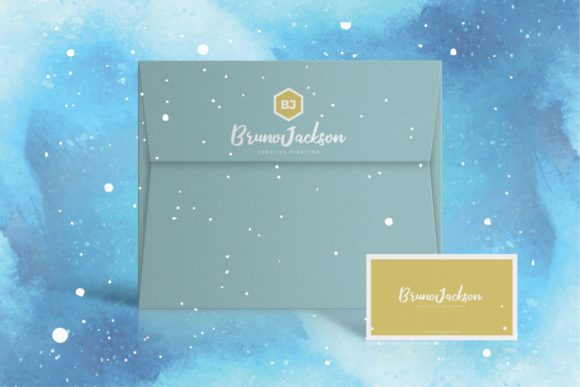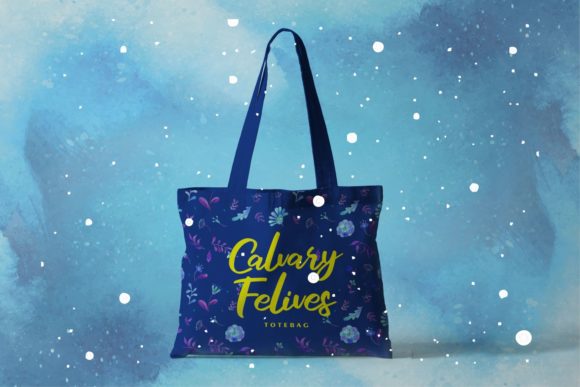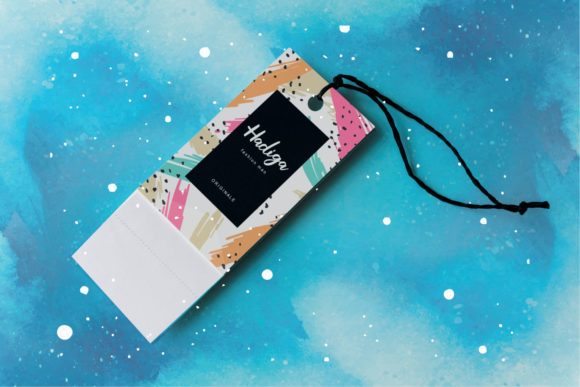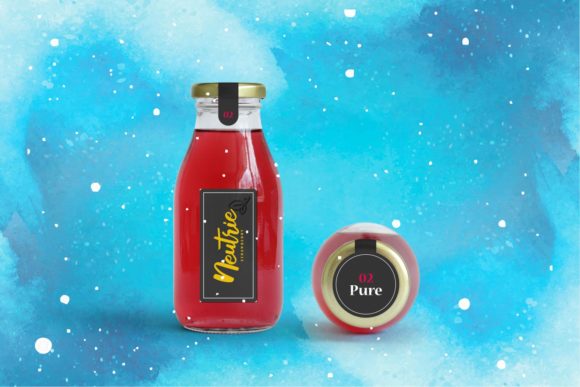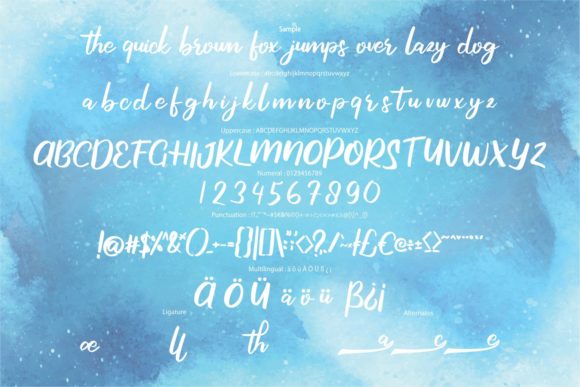
Introduction to Ratene Font
Ratene is a sweet brushed handwritten font.
It has a trendy and lovely style and it is the ideal choice for a wide range of designs Add it confidently to your projects, and you wonโt be disappointed.
Key Features of Ratene Font